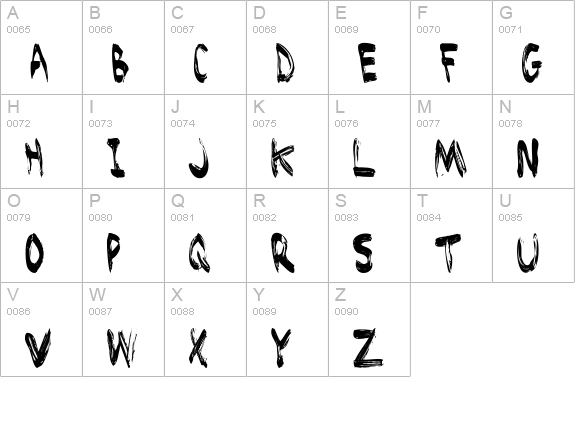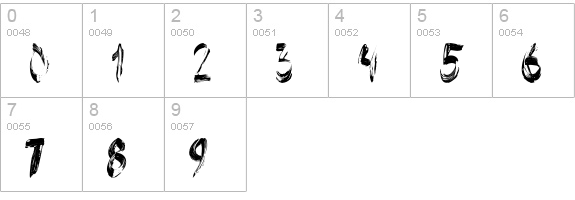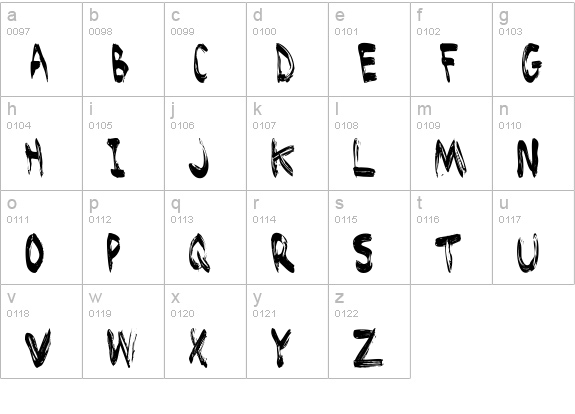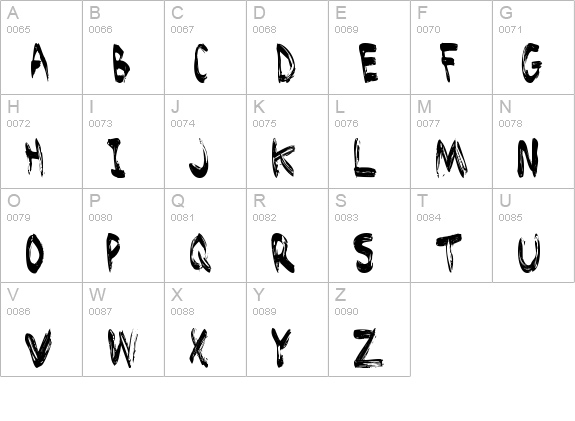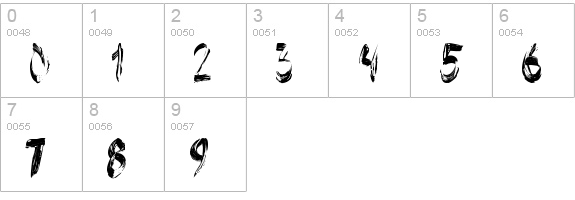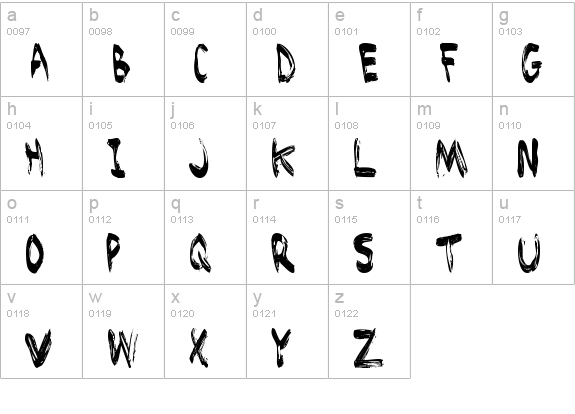
Brushed Font Details
The Brushed font is a dynamic and modern typeface that perfectly captures the essence of hand-painted brush strokes. With its stylish and artistic appearance, this font adds a touch of creativity to any project it is used in. The Brushed font is perfect for design projects that require a bold and eye-catching look. Best of all, the Brushed font is available for free download at FontsMarket.com. This means you can easily access this unique font and incorporate it into your designs without any cost. Whether you're working on a poster, logo, or social media graphic, the Brushed font is sure to make a statement and elevate your design to the next level. Download the Brushed font today and unleash your creativity with this stunning typeface!